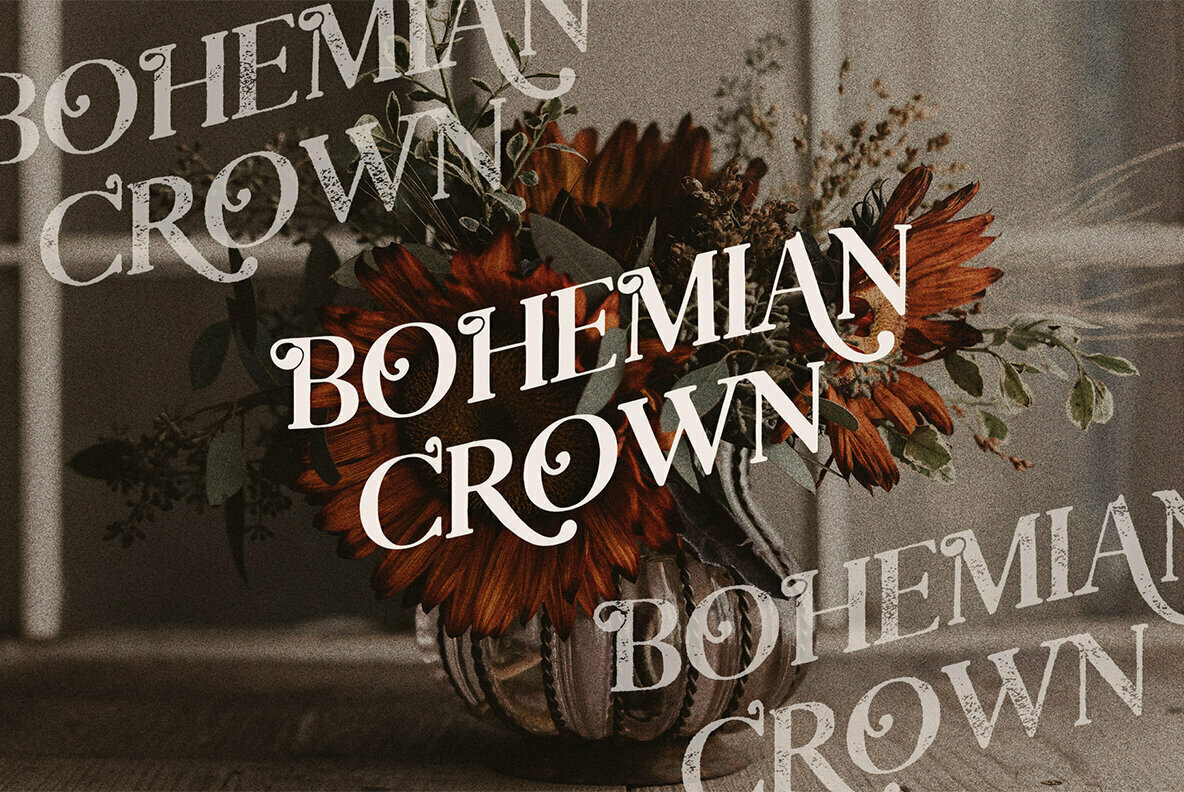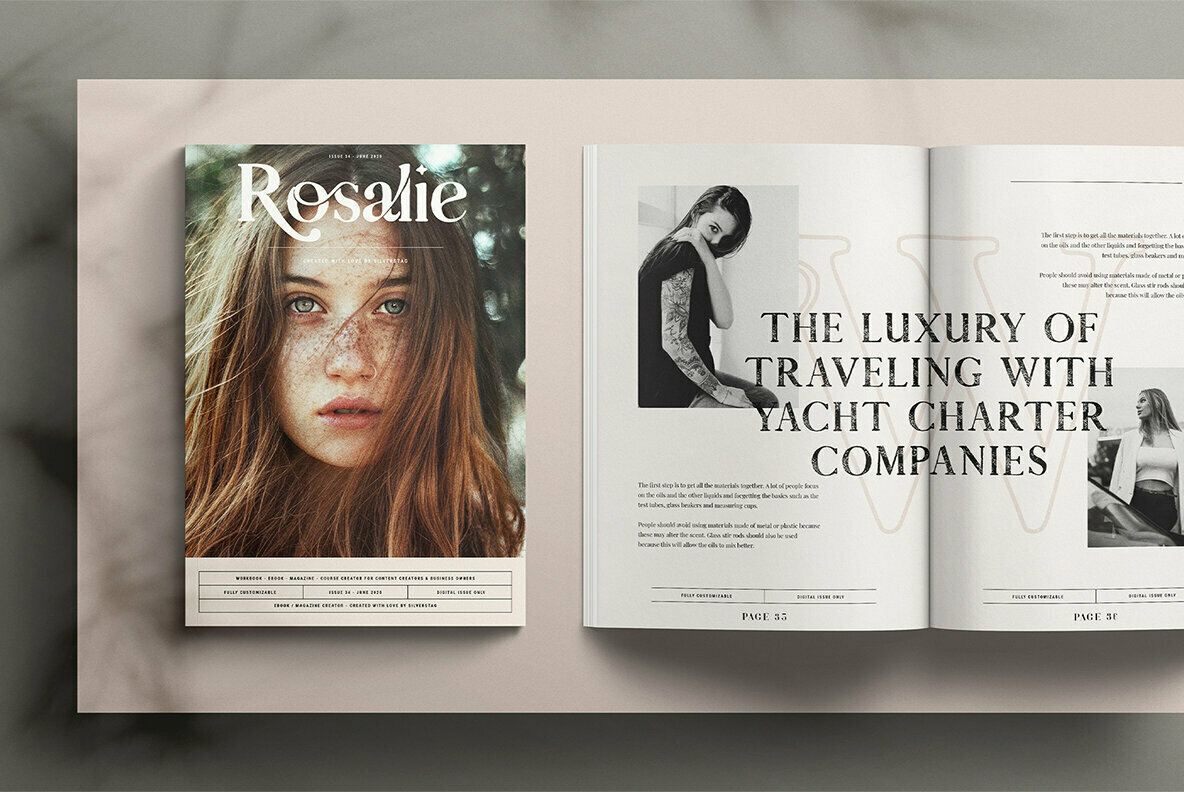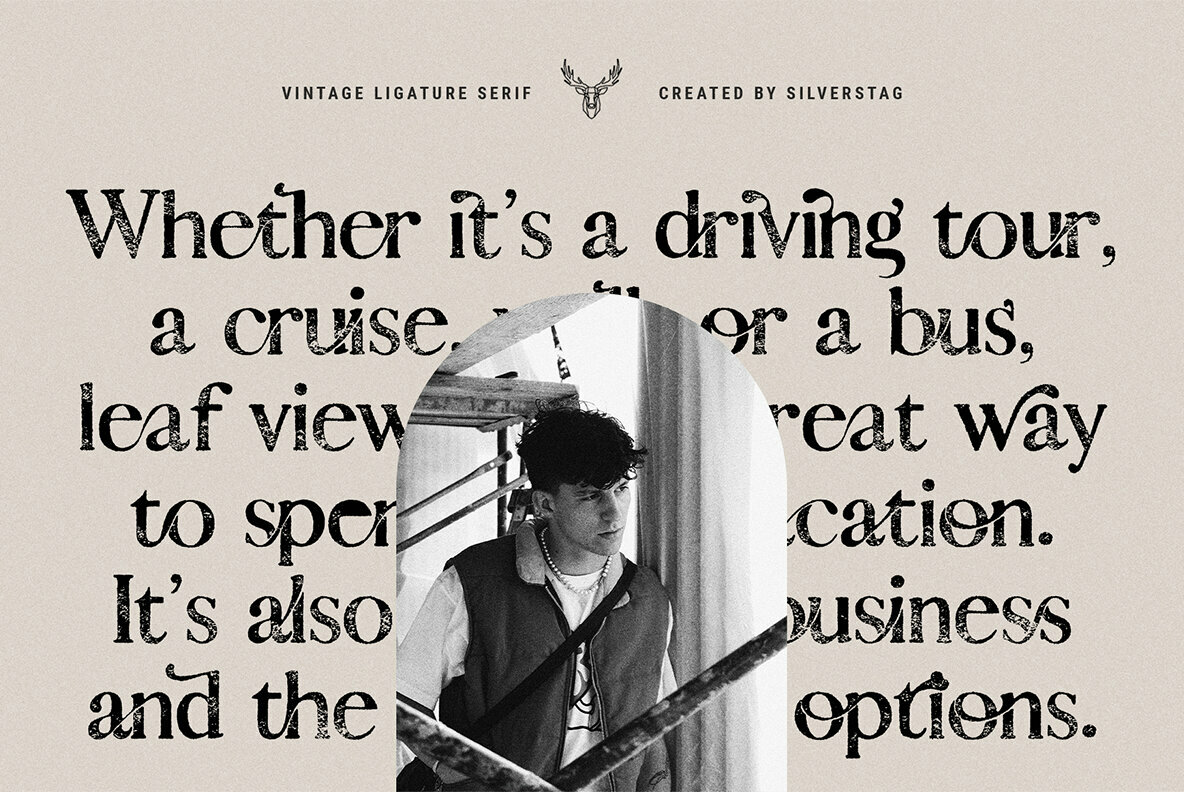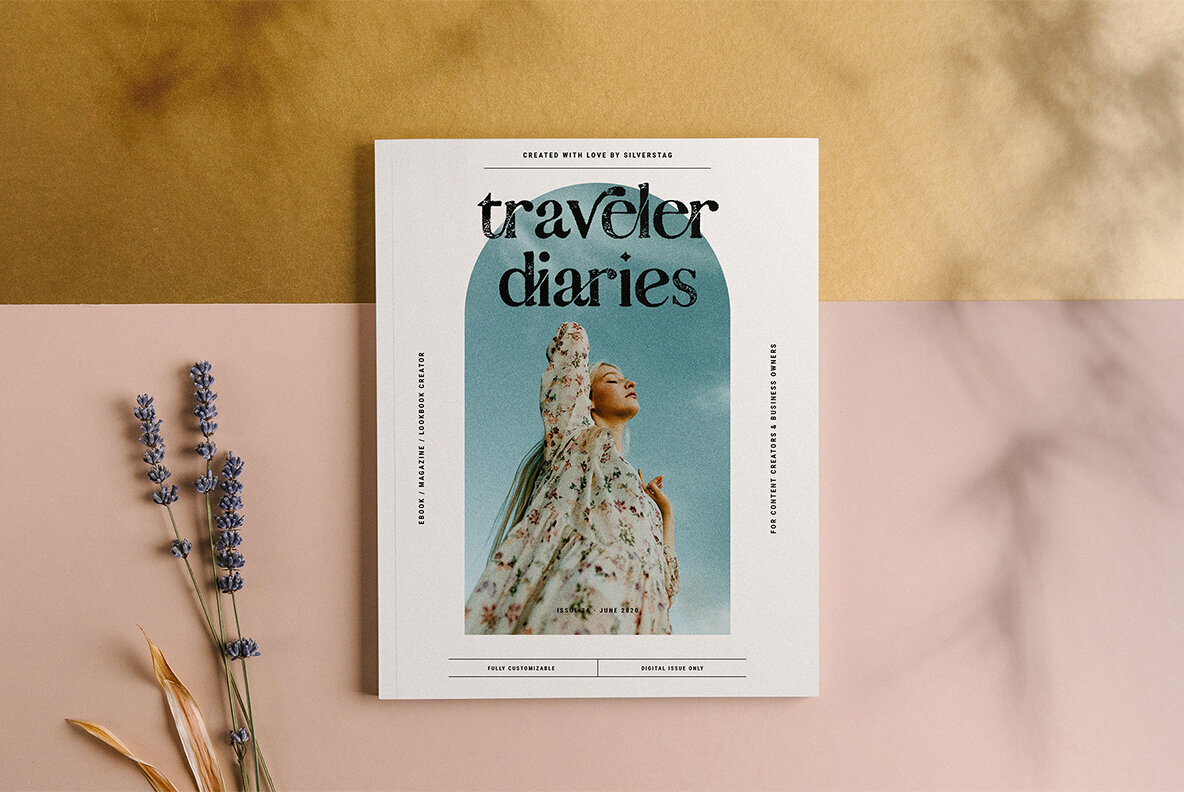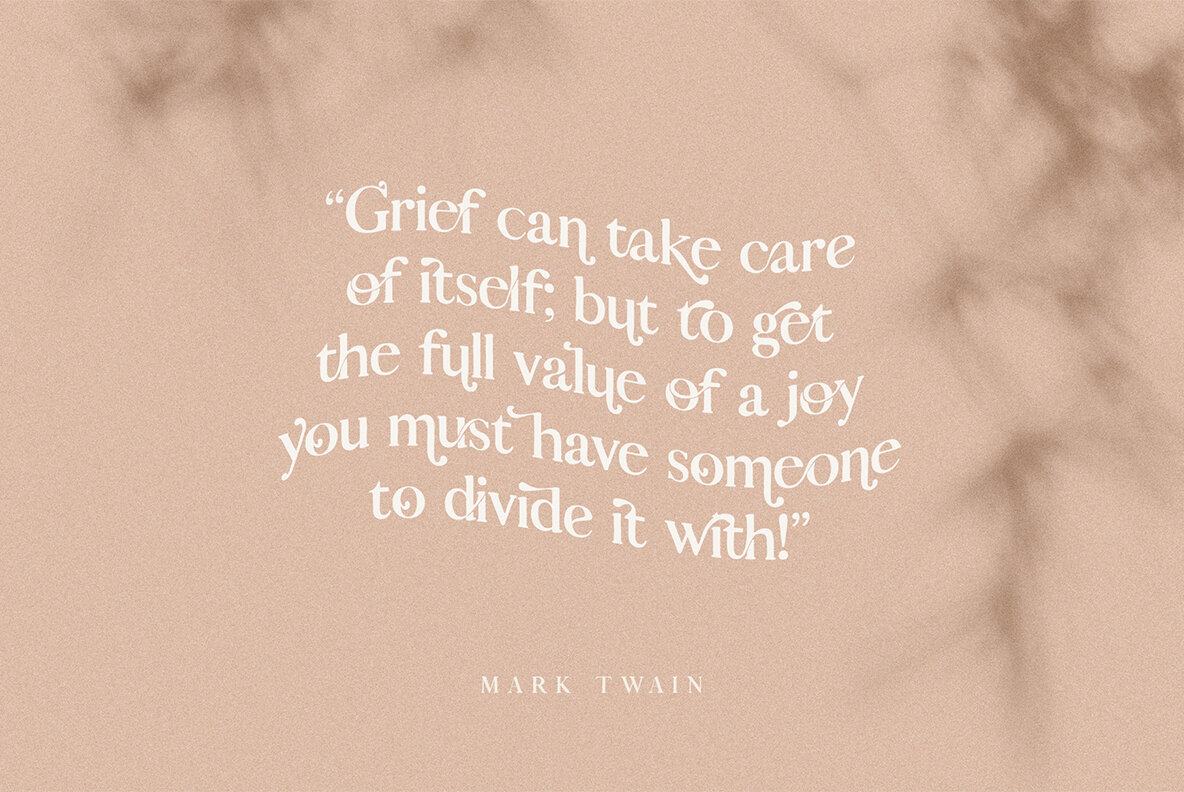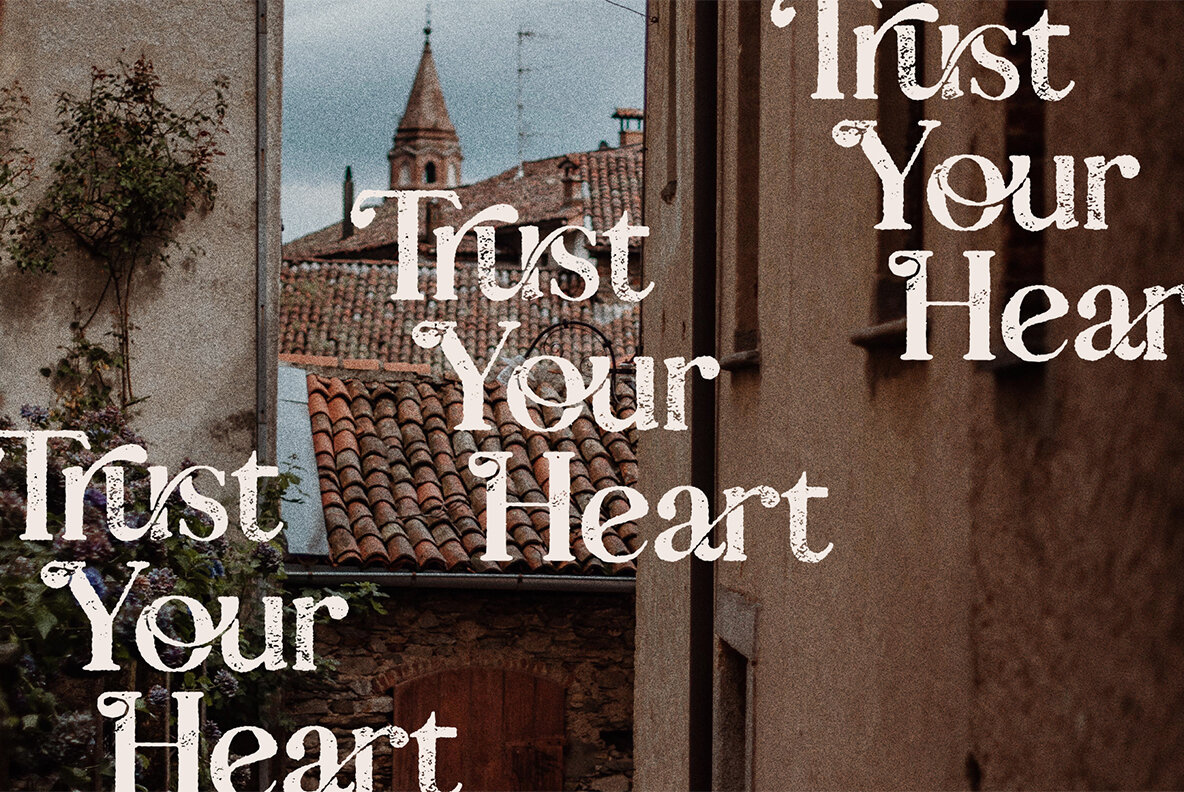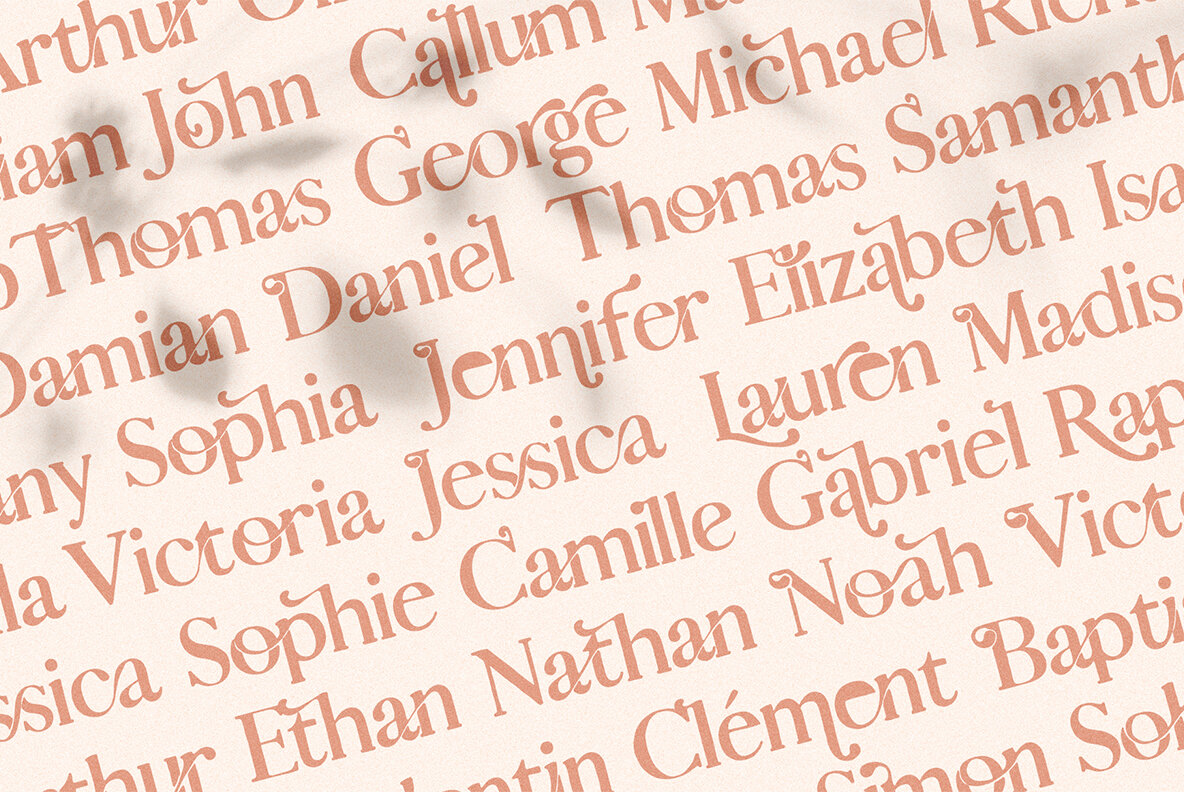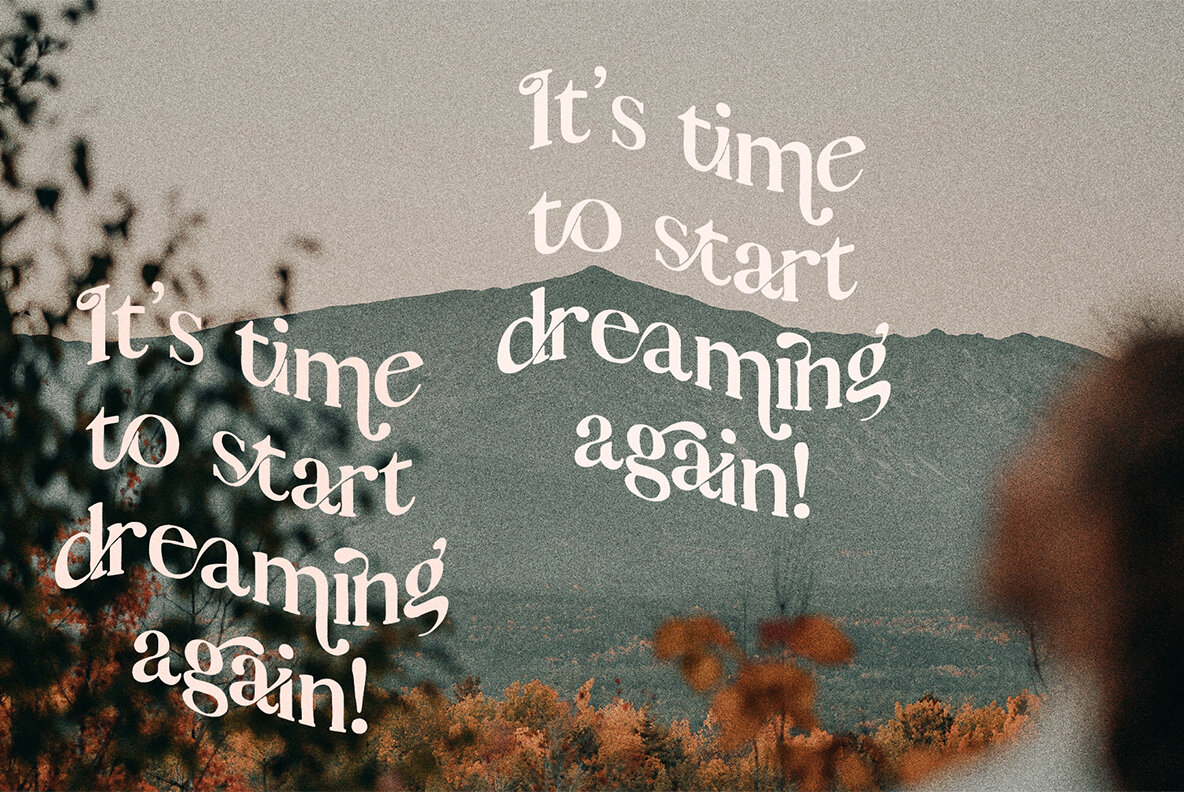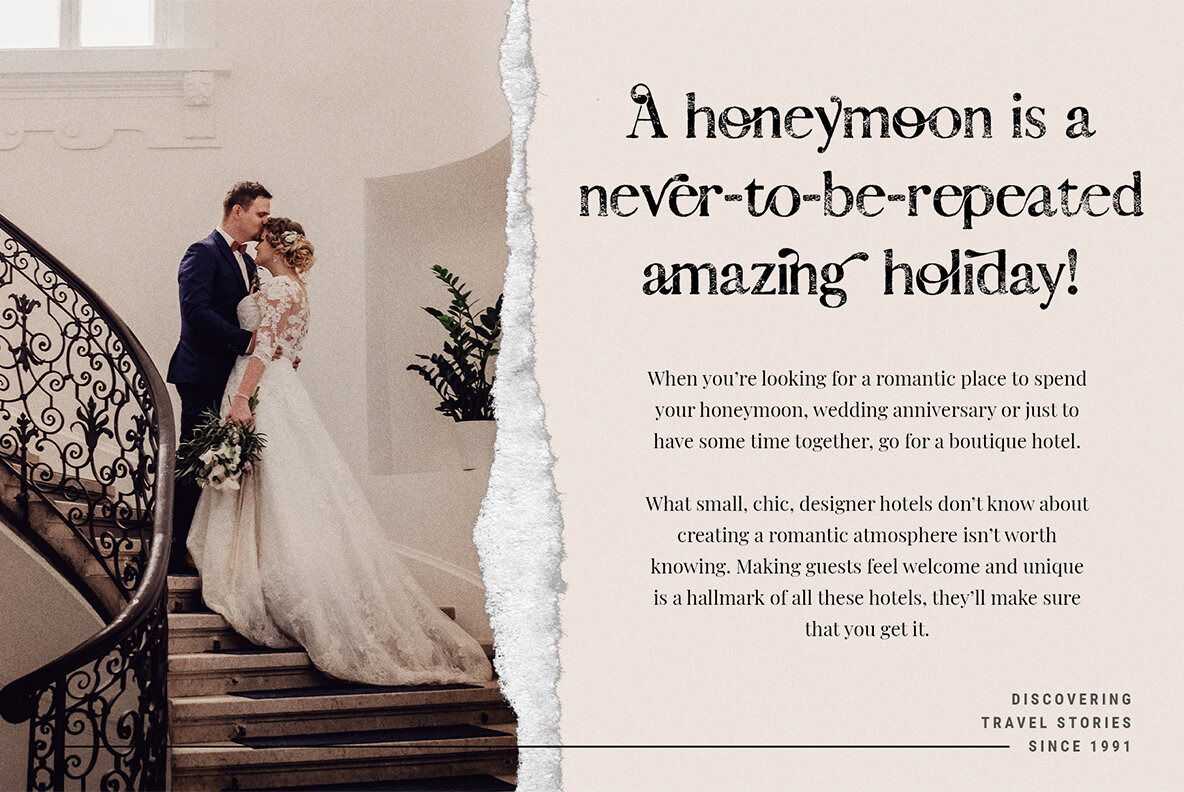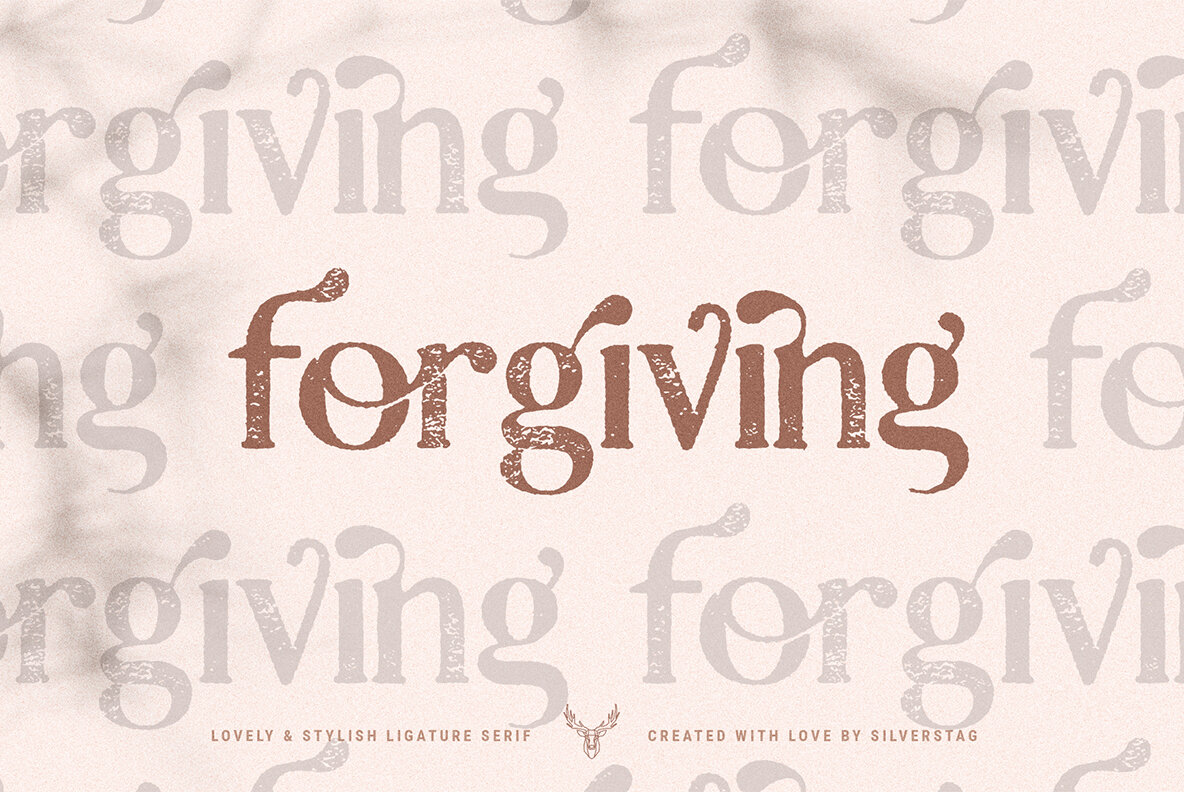
October Dreams Font
Hey everyone, Happy October and hope you're making some dreams come true this month. Are you ready for a completely reimagined look for one of the most popular font styles? A brand new image that makes every single letter completely unique and different? Well, I have been working hard during the last couple of months to give you exactly that. A brand new font where each letter, each alternate and each ligature was hand drawn and each of 623 characters is 100% different and unique.
Please keep in mind that the hand drawn graphics on the first preview image are not part of this hand-drawn serif font pack!
I have been working on the original version for quite a while and the ideas were just popping all around for more ligatures, more alternate letters, new combinations, new swirls,... And I ended up with over 350 alternates and ligatures in one serif font!
Whether you have a client that needs a new chic logo, or you're designing your social media posts. Maybe you're preparing your wedding mood board, stationery, invitations, October Dreams ligature font is just perfect for all of that and more. Check out the photos I have prepared for you to see what you can do with it and happy creating!